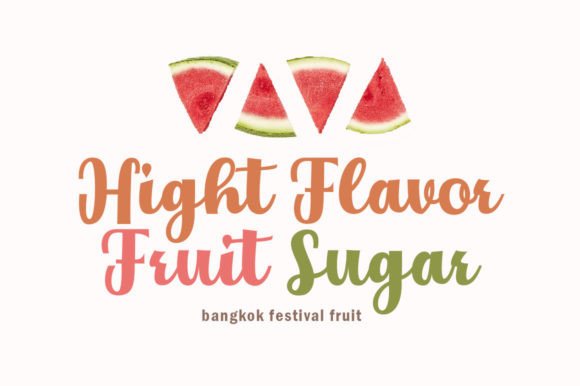
Introduction to Pocus Font
As a designer, have you ever been stuck trying to find the perfect font for a creative project? The blank page stares back at you, taunting you with its emptiness, until suddenly – inspiration strikes! You’re browsing through font libraries, and then, it hits you: the elegant, handwritten feel of the Pocus Font. Its unique charm and sophistication can elevate any design, making it a valuable resource for designers of all levels.
Whether you’re working on a wedding invitation, a heartfelt thank you card, or a business logo, the Pocus Font is sure to add a touch of whimsy and personality to your design. With its high-quality, transparent background, this font is a game-changer for designers who want to take their creative projects to the next level. The best part? It’s available for free download, making it an invaluable design resource for anyone looking to add a little magic to their work.
Pocus Font
- Comes with a transparent background, allowing for seamless integration
- Unique characteristics: Unique letterforms, elegant feel, and versatility
Honest Review: Pocus Font
I recently had the chance to work with the Pocus Font, and I must say it’s been a game-changer for my creative projects. This font is perfect for designers who need a high-quality, unique font to give their work an edge.
What works well: ✨ The Pocus Font has a transparent background, making it easy to overlay on any image or design element. It’s also free to download, which is a huge plus for designers on a budget. The font is highly customizable, allowing you to adjust the size, color, and style to fit your design needs.
- Wide range of applications, from logos to digital graphics
- Highly customizable for a unique look
However, there are a few limitations: ⚠️ The font can be a bit difficult to read in certain sizes, and the transparency feature can be a bit finicky at times. Additionally, the font’s unique design may not be suitable for all types of projects.
Overall, I’m thoroughly impressed with the Pocus Font. It’s a valuable design resource that can help take your creative projects to the next level. With its high quality and unique features, I would highly recommend it to any designer looking to add some flair to their work.
Pocus Font
Pocus Font is a free download design resource ideal for creative projects requiring a high-quality, unique font. Its transparent background makes it versatile and easy to use in various applications.
Tips for Getting the Most Out of Pocus Font
To maximize the use of Pocus Font, experiment with different text sizes, colors, and layering techniques. Combine it with other design elements to create visually striking and unique designs.
Pocus Font is suitable for various creative projects, including social media graphics, blog posts, marketing materials, and more. Its high-quality design and transparent background make it a valuable design resource for designers and non-designers alike.